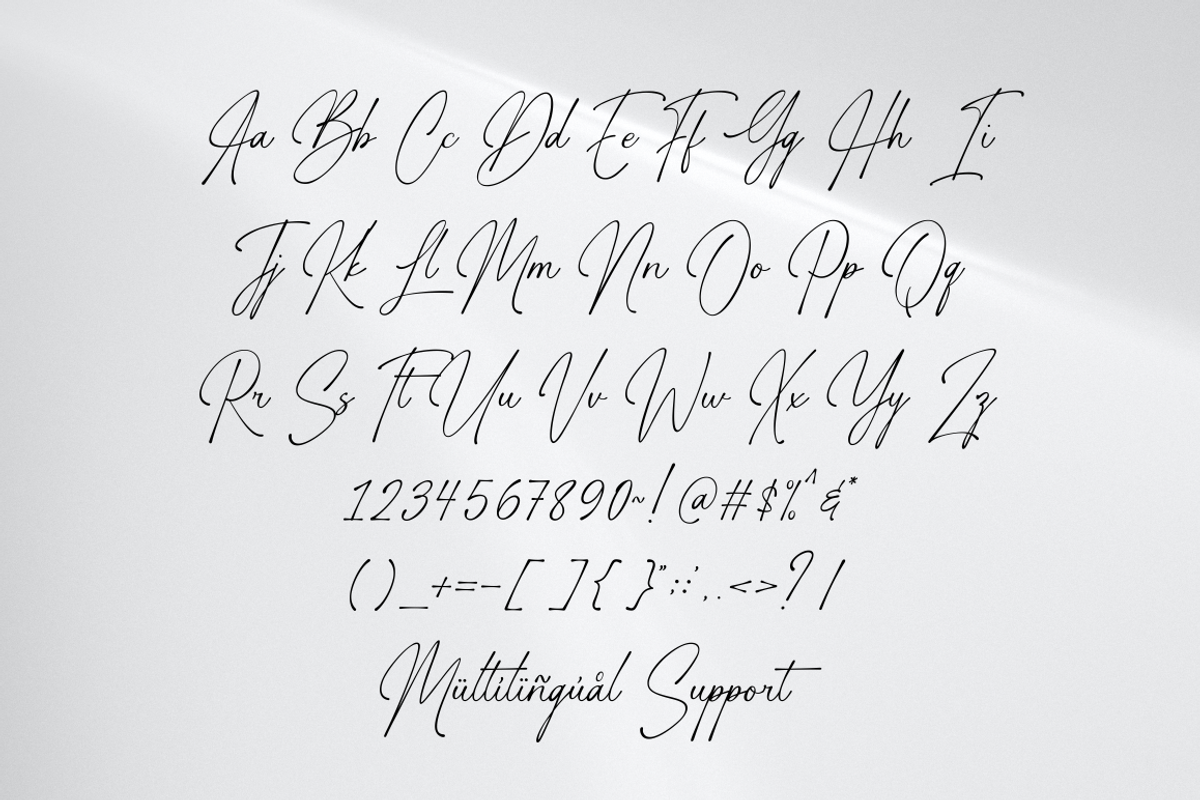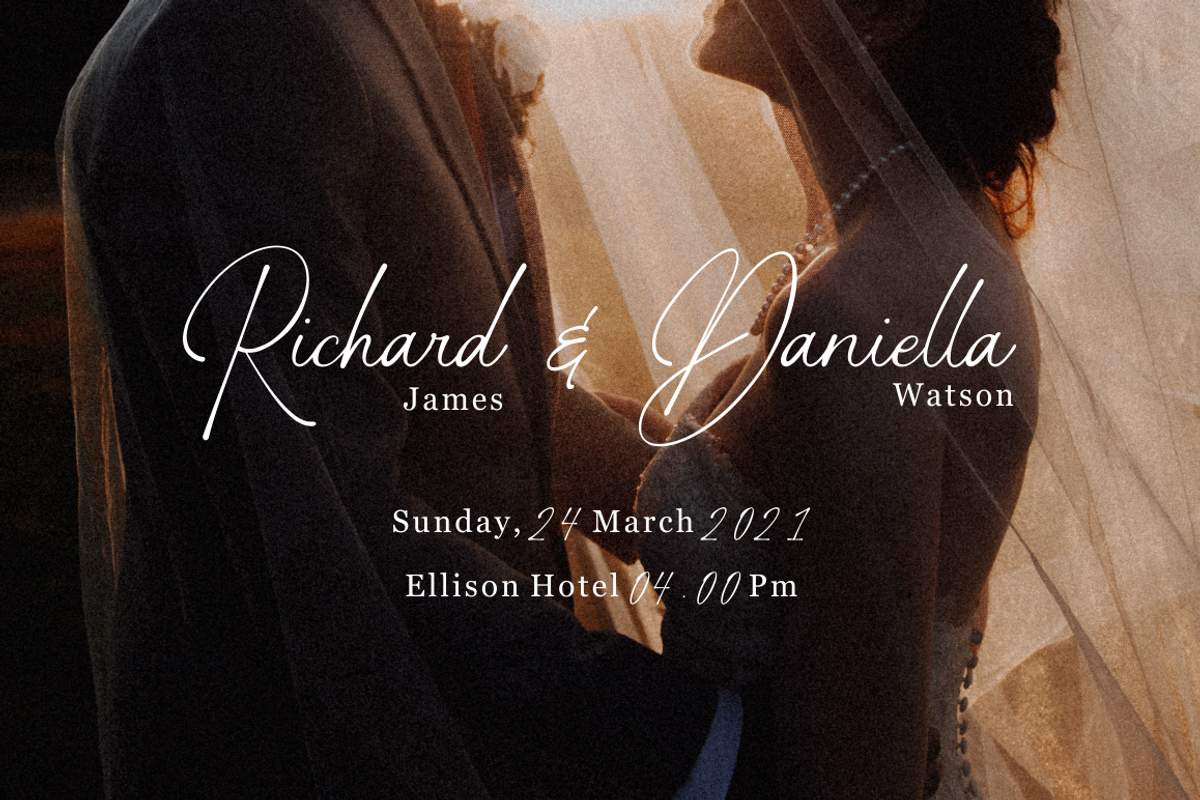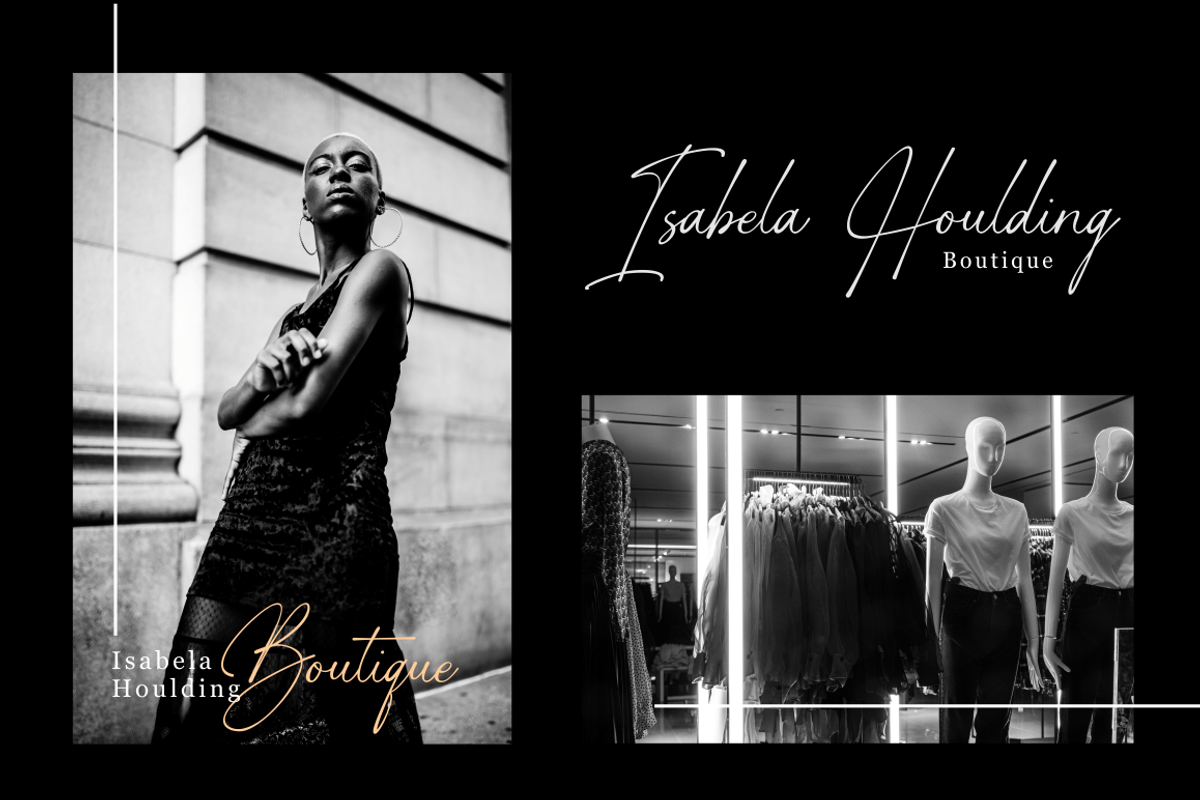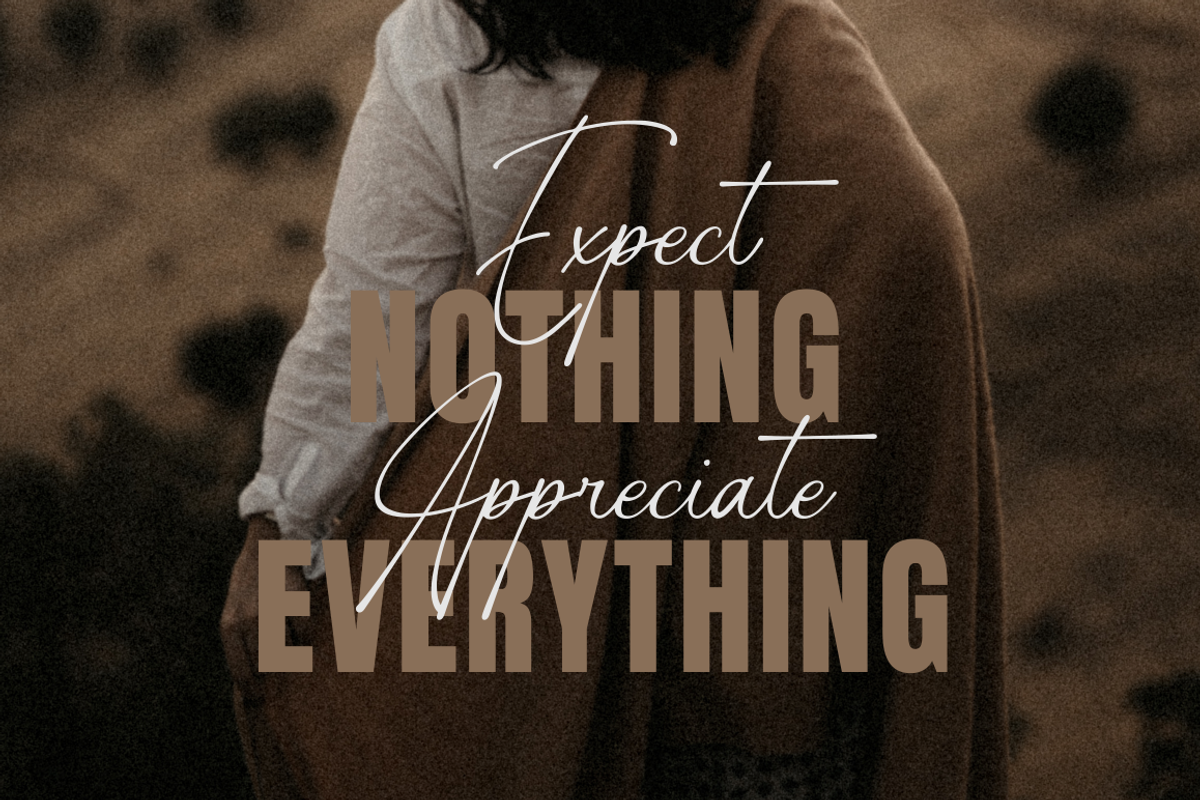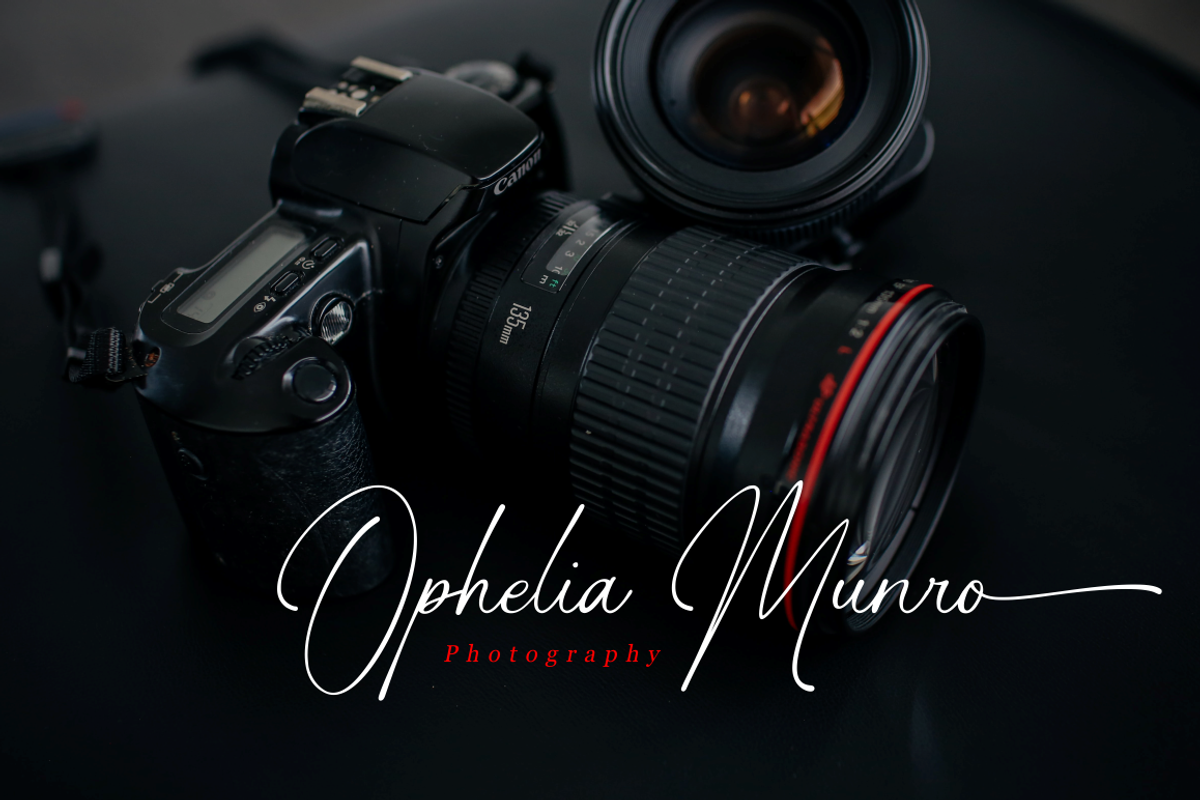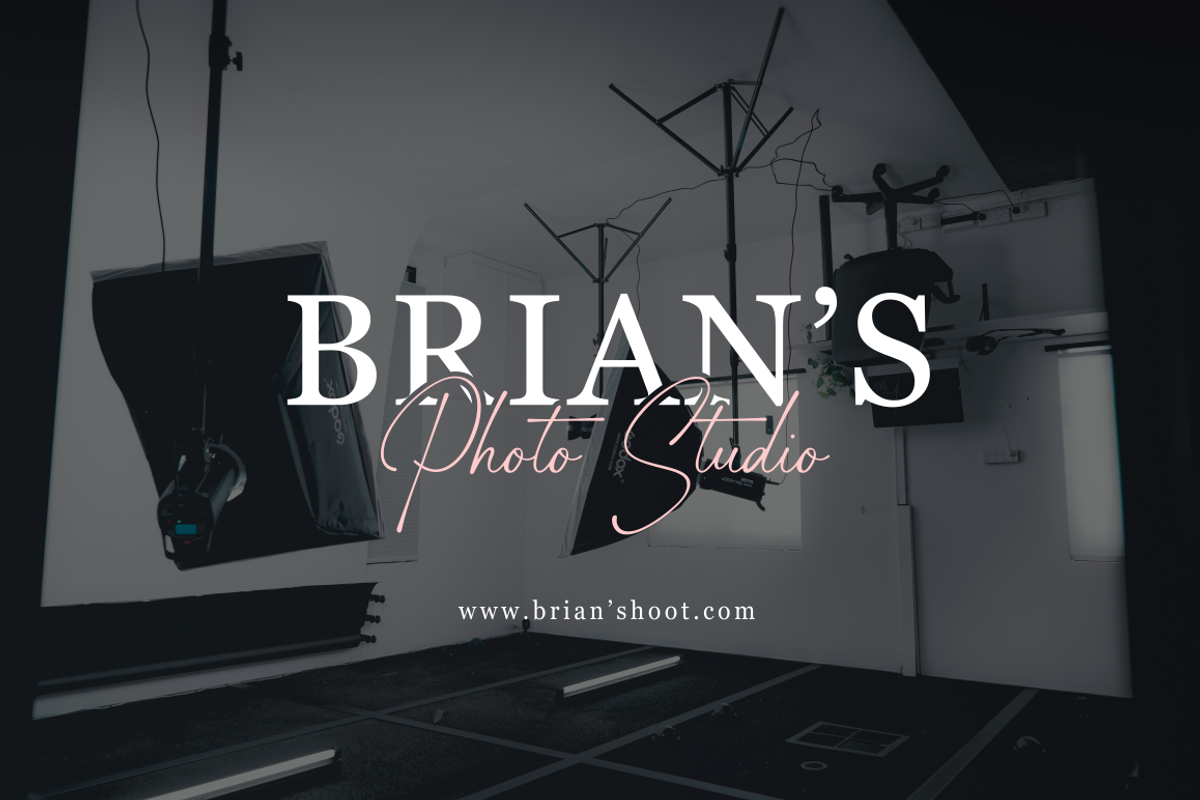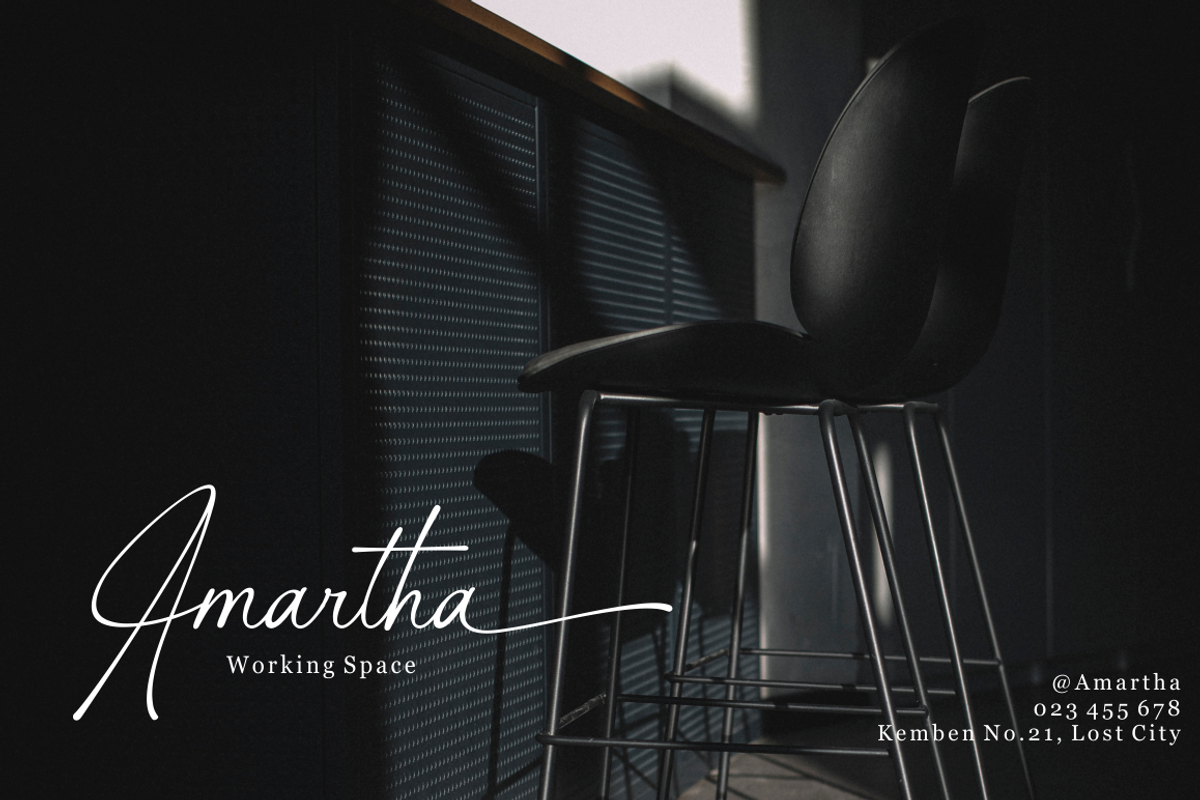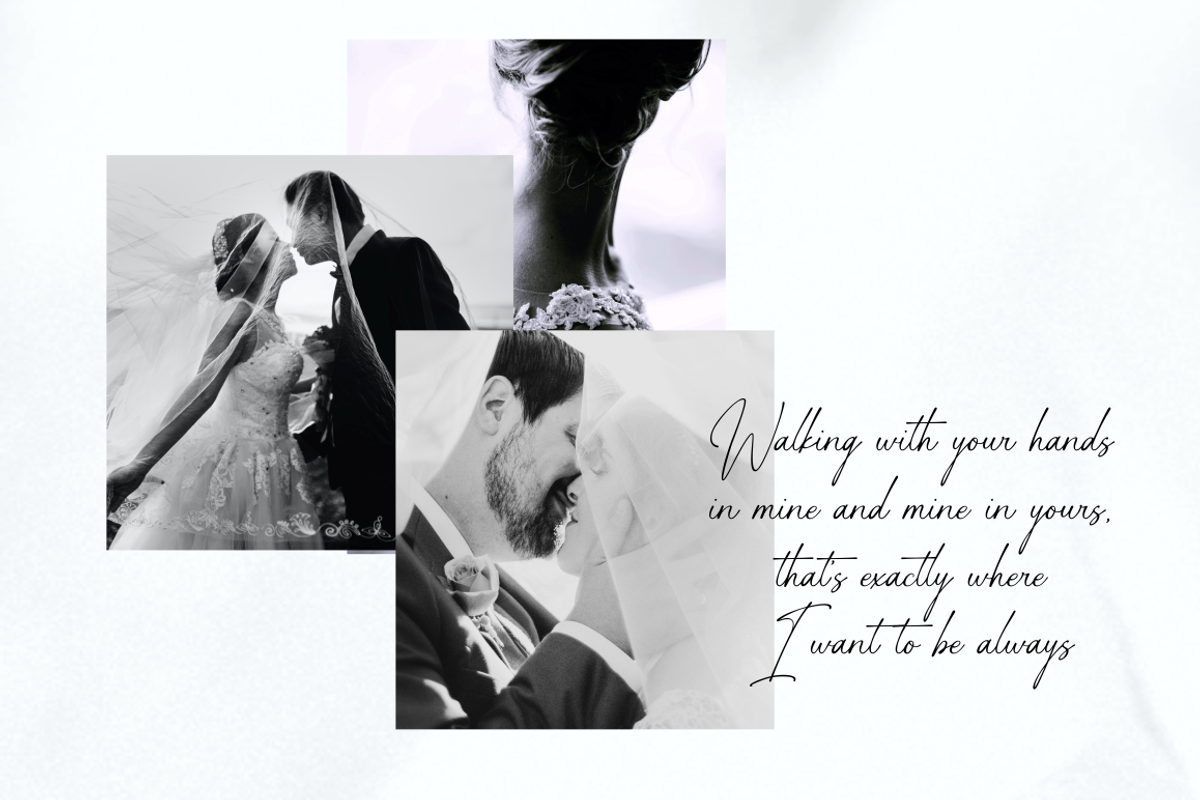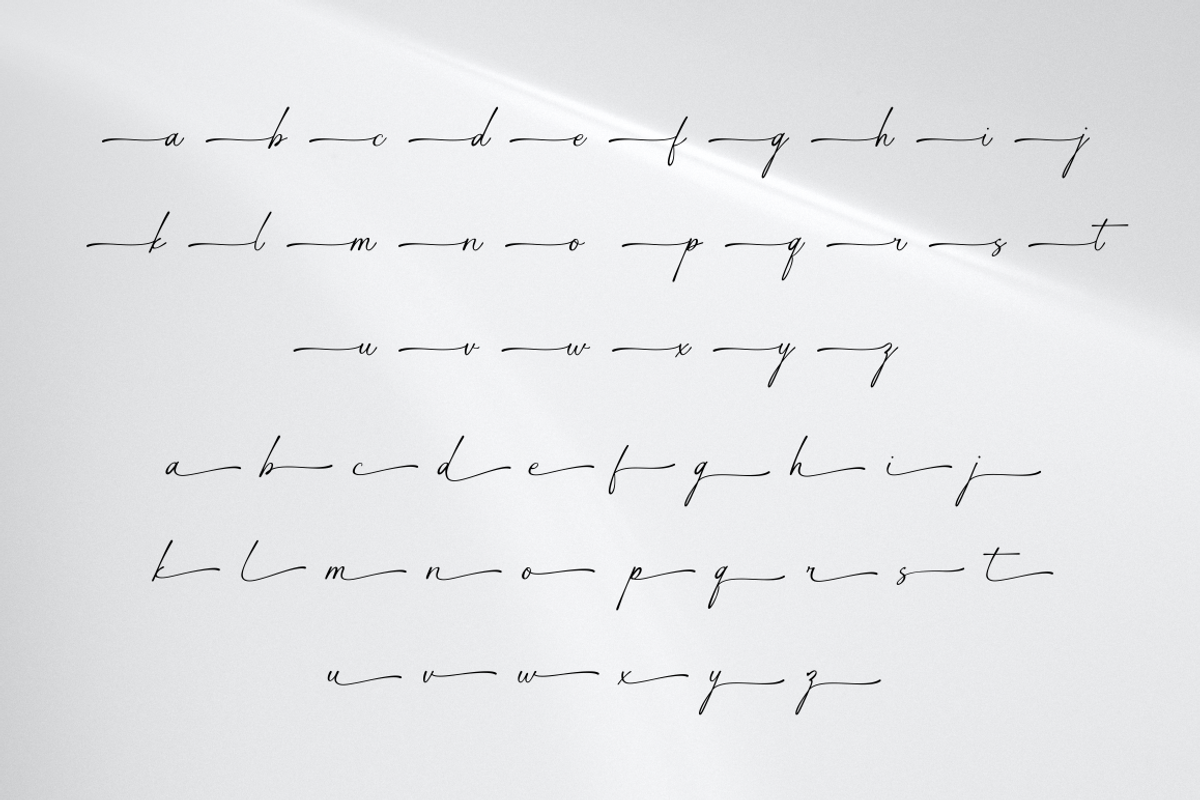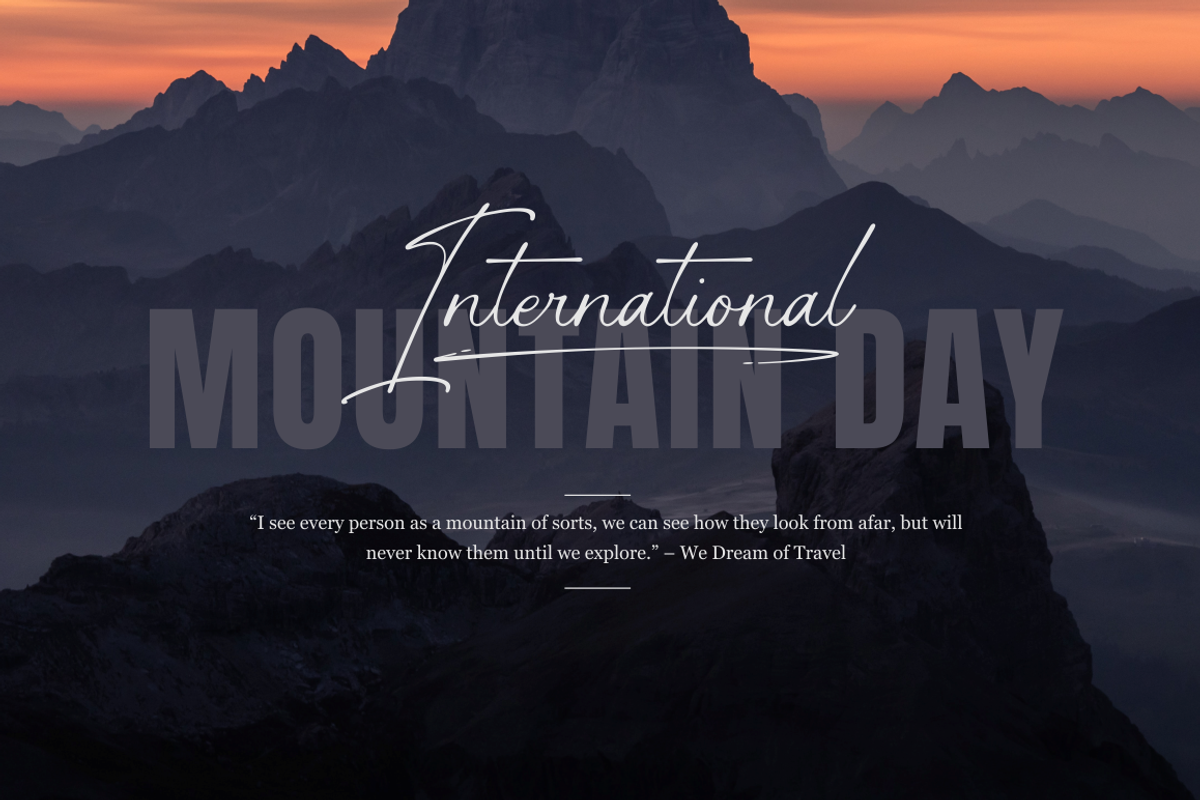
Gasthony - Signature Font
Gasthony – Signature Font – Perfect for branding, invitation, stationery, wedding designs, social media posts, advertisements, product packaging, product designs, label, photography, watermark, special events, and more.
- Uppercase and lowercase letters
- Swash alternates ( Beginning, Ending )
- Multilingual symbols, numerals, and punctuation